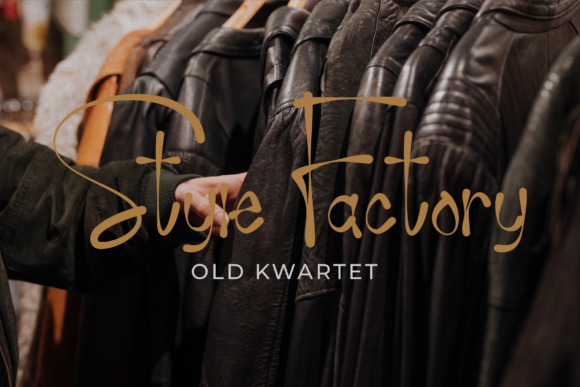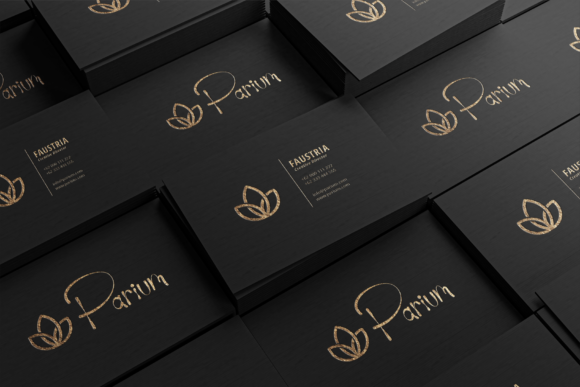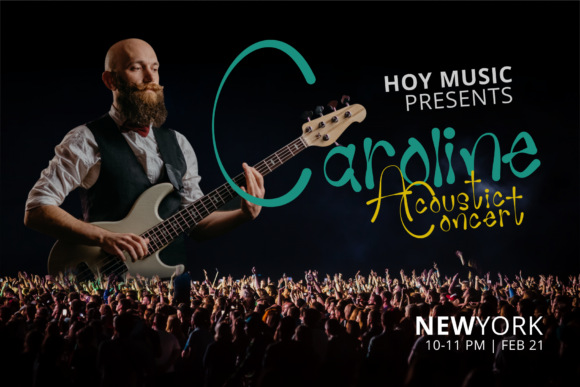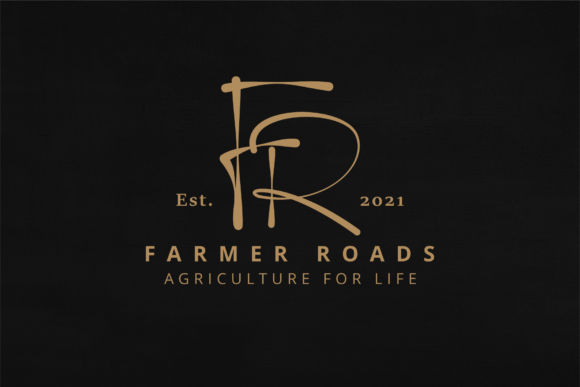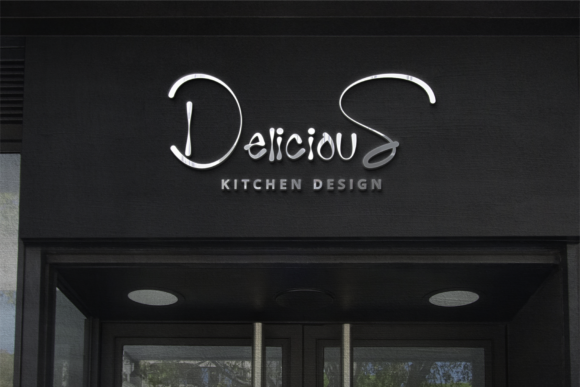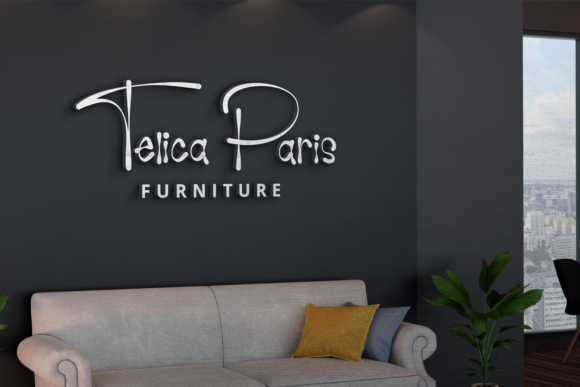
Introduction to Rey Simpson Font Font
Fonts play a crucial role in design, and the Rey Simpson Font font is a typeface that brings both character and versatility to any project. Whether you’re working on a branding project, a website, or a print design, the Rey Simpson Font font offers a unique style that can elevate your work.
Rey Simpson is a simple and cute handwritten font.
It is defined by smooth and relaxed curves and is perfect for fashion branding or editorial designs Add it confidently to your projects, and you will love the results.
Key Features of Rey Simpson Font Font
Why Choose Rey Simpson Font Font?
The Rey Simpson Font font is more than just a typeface – it’s a design tool that helps you communicate your message with style and clarity. Its unique character set and versatile design make it suitable for a wide range of applications, from elegant invitations to bold headlines.
With its carefully crafted letterforms and balanced proportions, the Rey Simpson Font font ensures readability and visual appeal across all mediums.
What makes Rey Simpson Font font special?
The Rey Simpson Font font stands out with its unique design, exceptional readability, and versatility across various design applications.